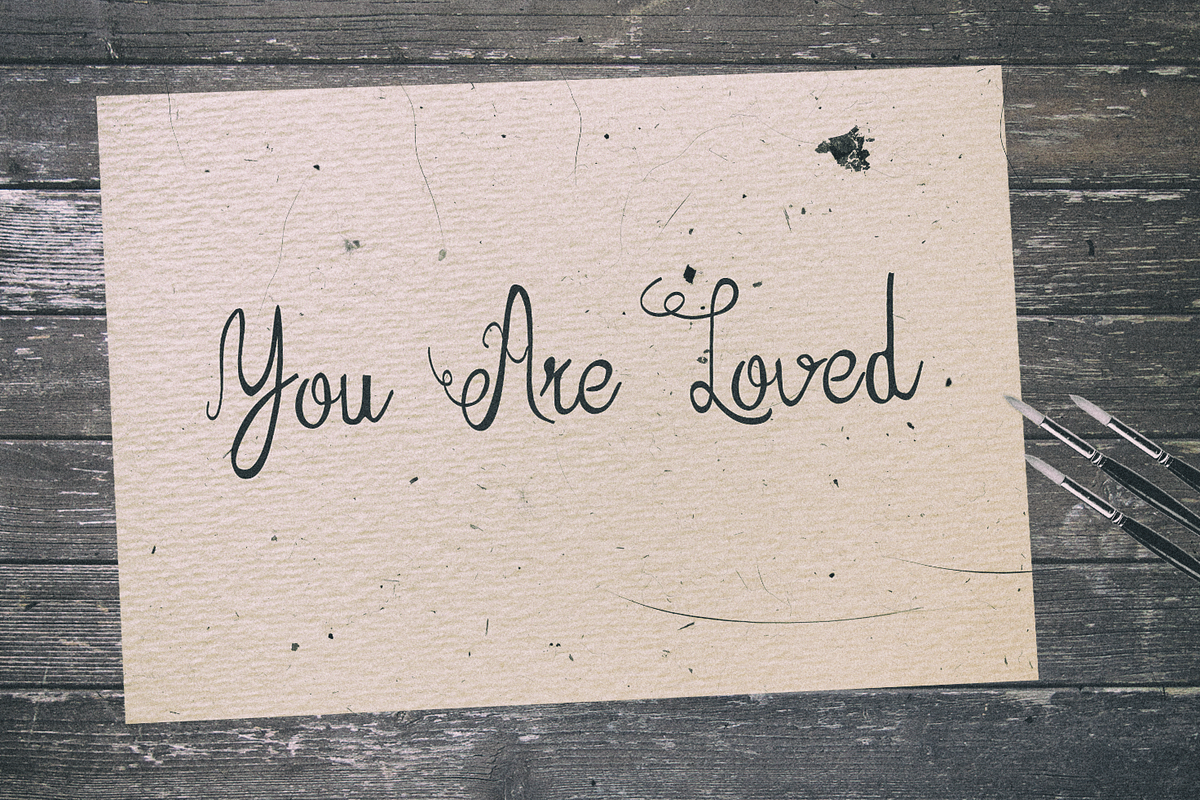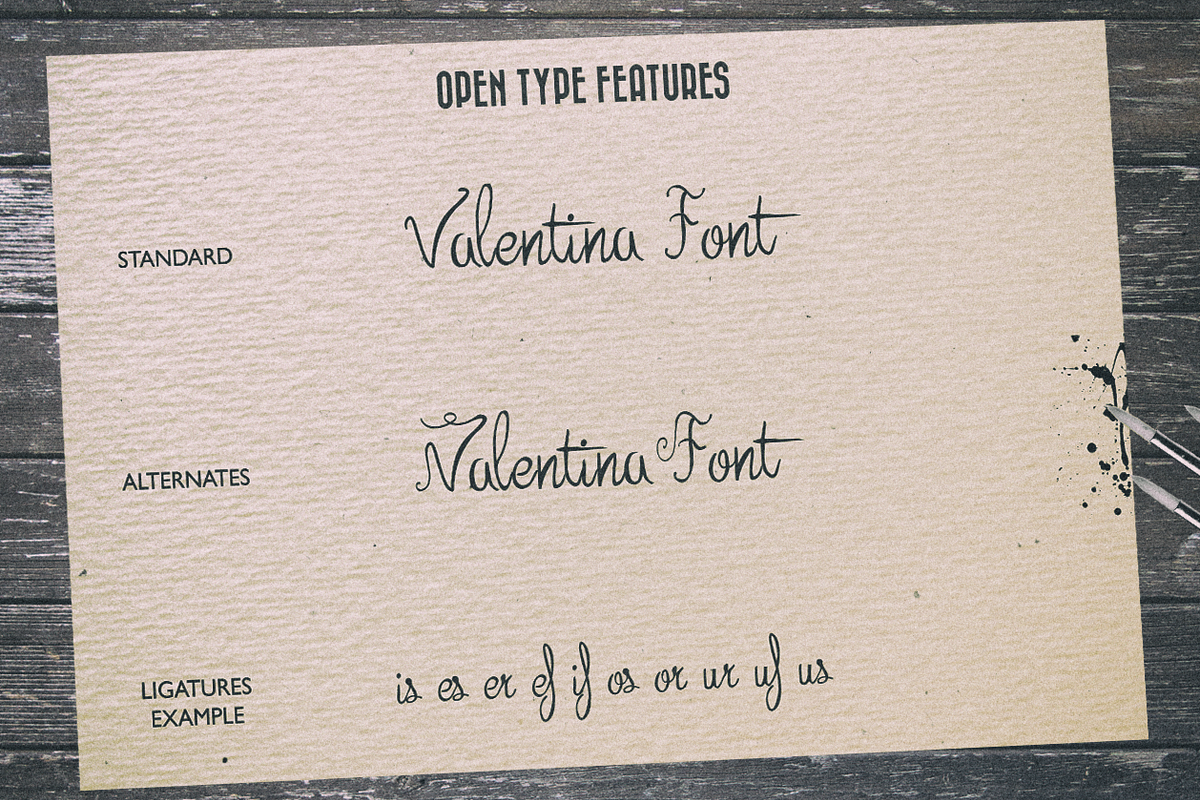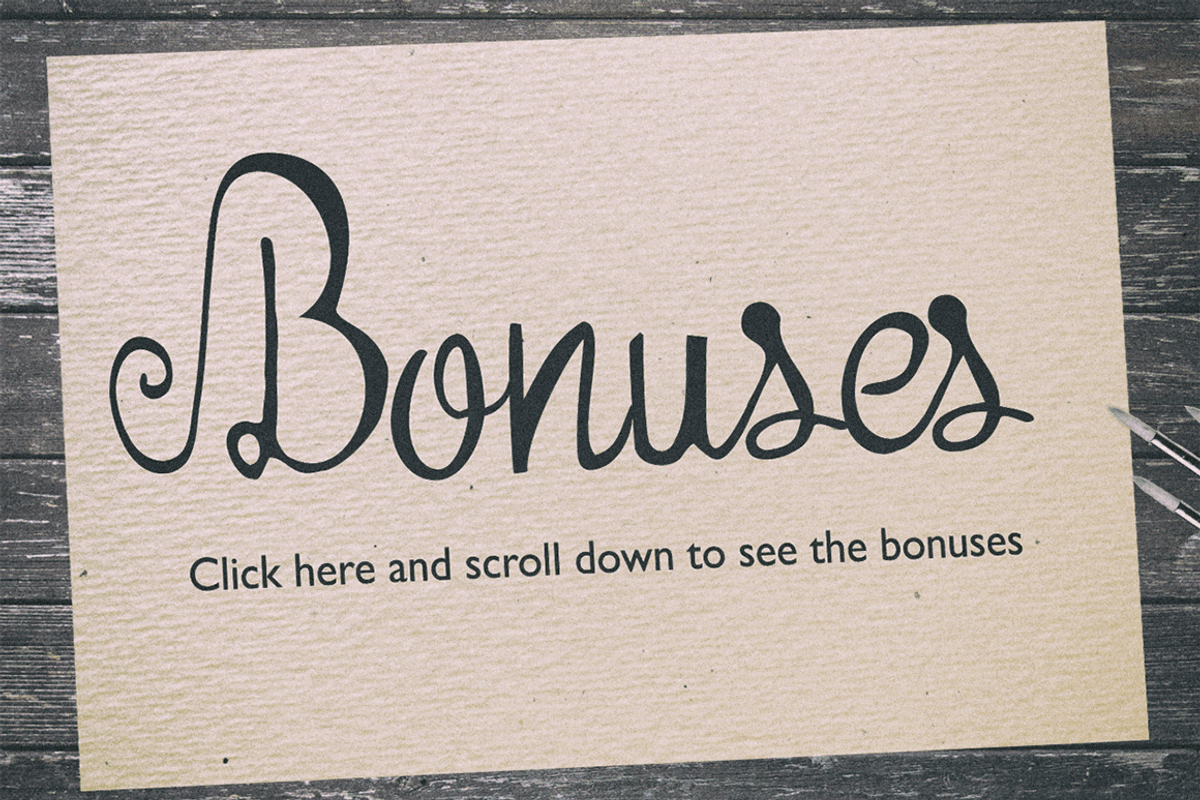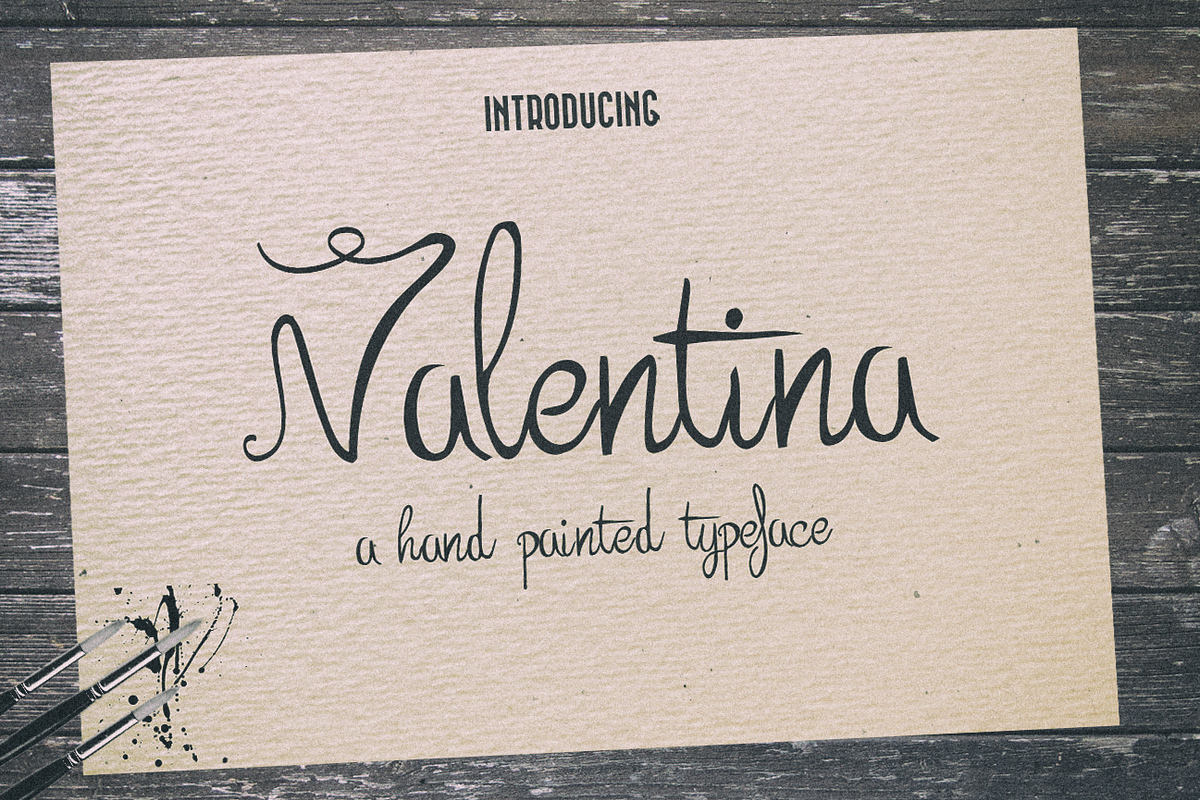
Valentina Typeface + Extras
Valentina Typeface + Extras by Imagine Design is a font selected for branding, posters, packaging, typography.
- It includes awesome OpenType Features like Stylistic Alternates and ligatures.
- Numerals, Punctuations & Accents (Multilingual characters)
- Uppercase Stylistic Alternates
Valentina Typeface + Extras by Imagine Design fits naturally into Branding, posters, packaging, typography.